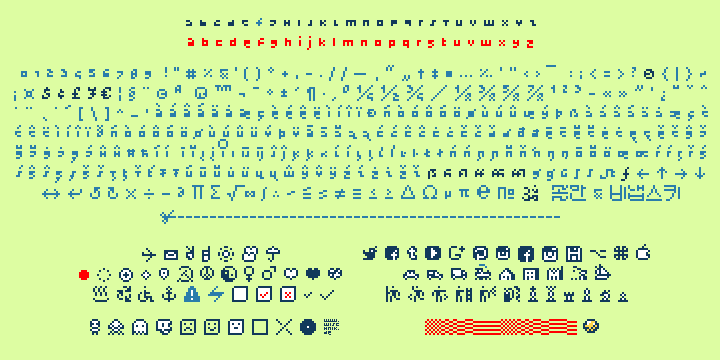
satzkorn is an experimental lower-case pixelfont meant to be displayed at a height of 16 pixels mimicking a resolution of 8 pixels. the "half-pixel"-dimensions are almost exclusively used for kerning and rarely for the characters themselves. the lowercase letters are the base font and are with one exception not higher than 3 pseudo-pixels. the capital letters are composed of stylistic alternatives that exceed this height and can improve readability. the figures are old style. the font includes a complete latin character set, some ligatures, assorted mathematical and miscellaneous symbols, a collections of own symbols including popular social media icons, a raster wave set and also travel and emergency pictograms. the font is kerned and optimized. so far satzkorn the first font that i have created. my original intend was the creation of a minimalistic type with a retro game feeling to it. feel free to criticize and request other symbols. i might publish an updated version a couple months from now. (made with BitFontMaker2 and Glyphs) |